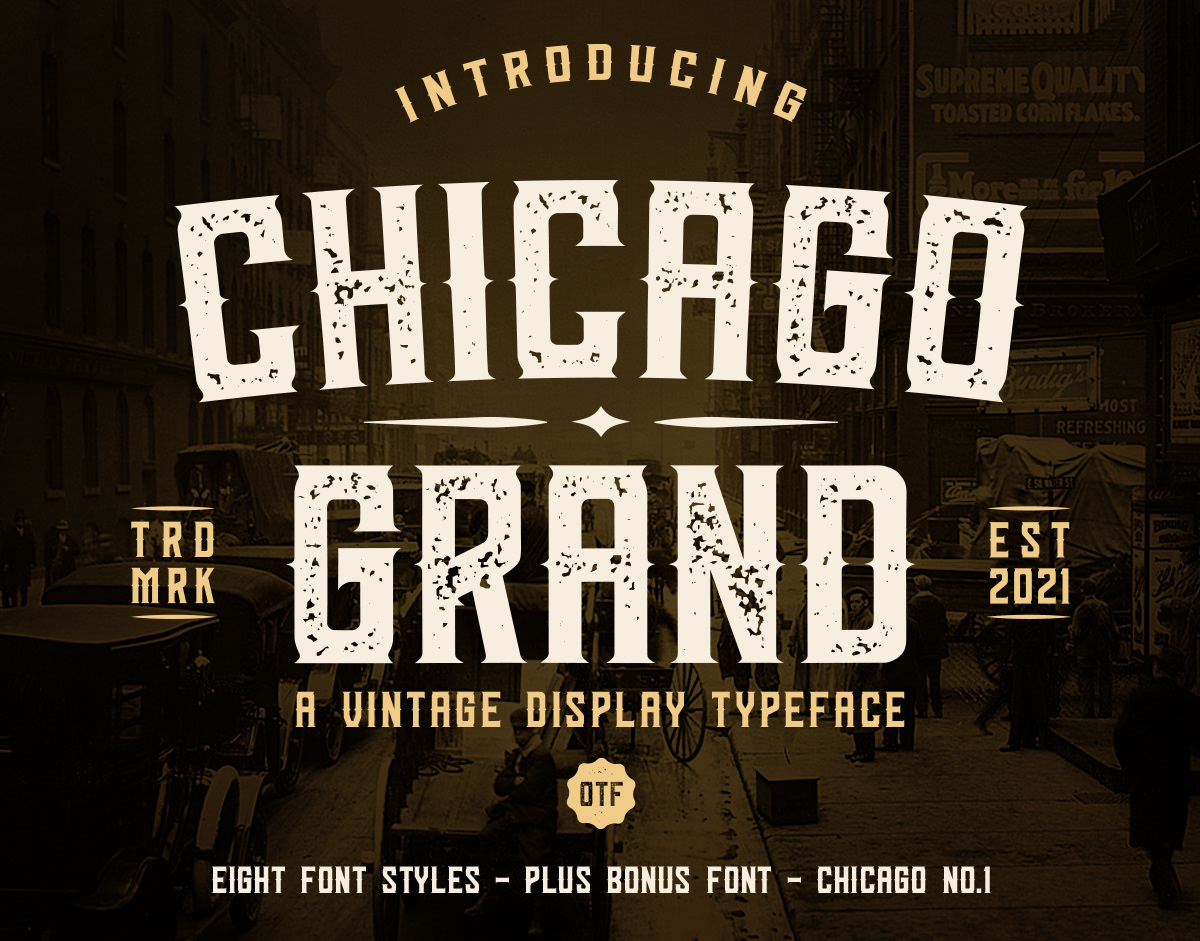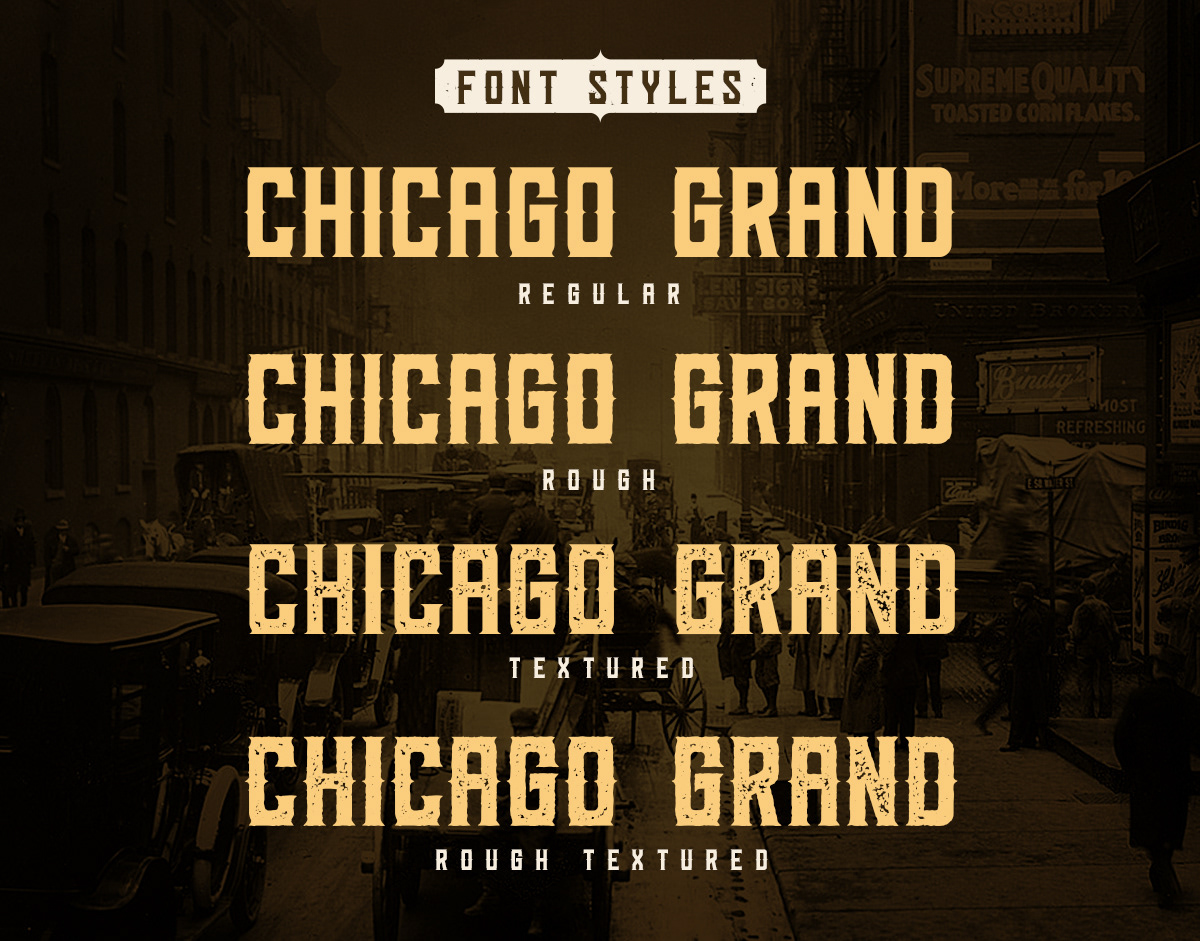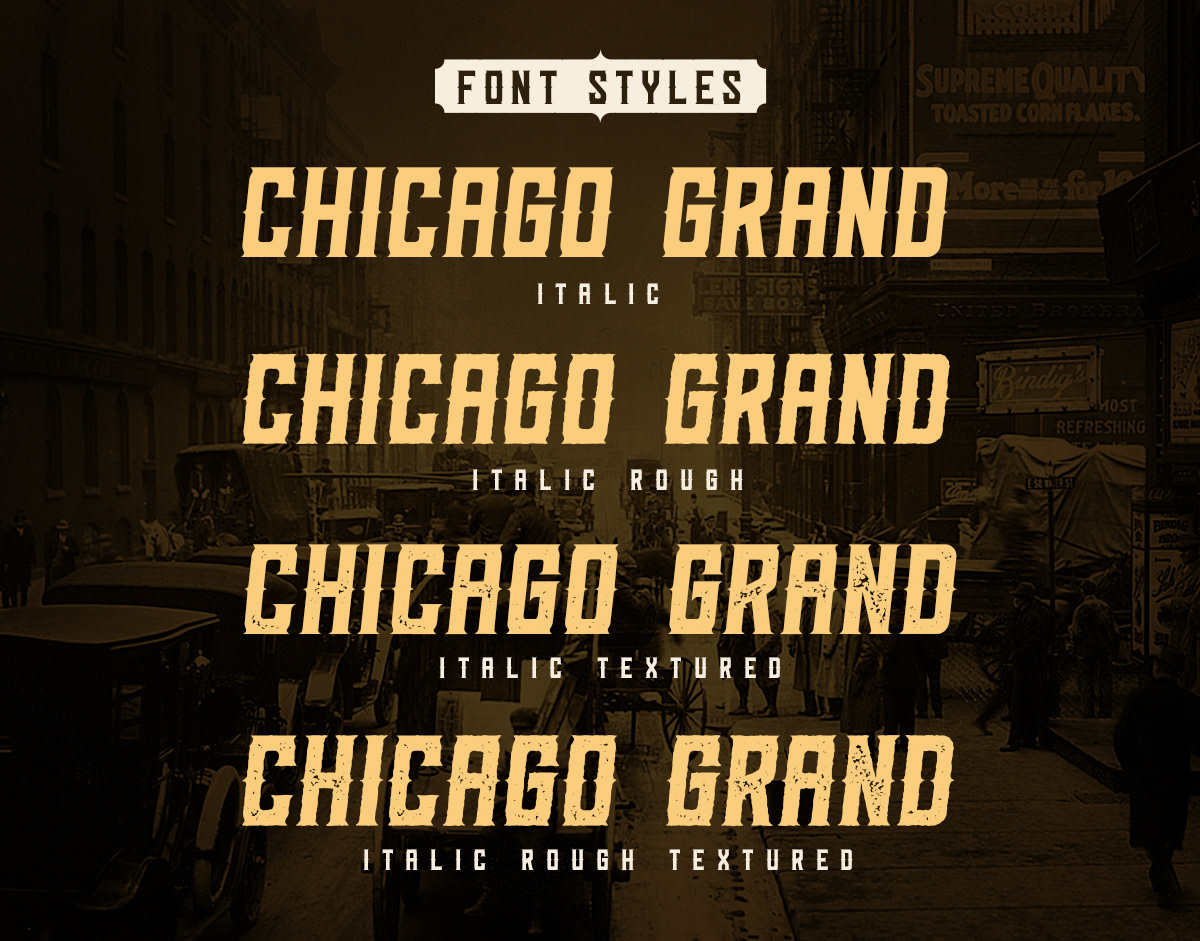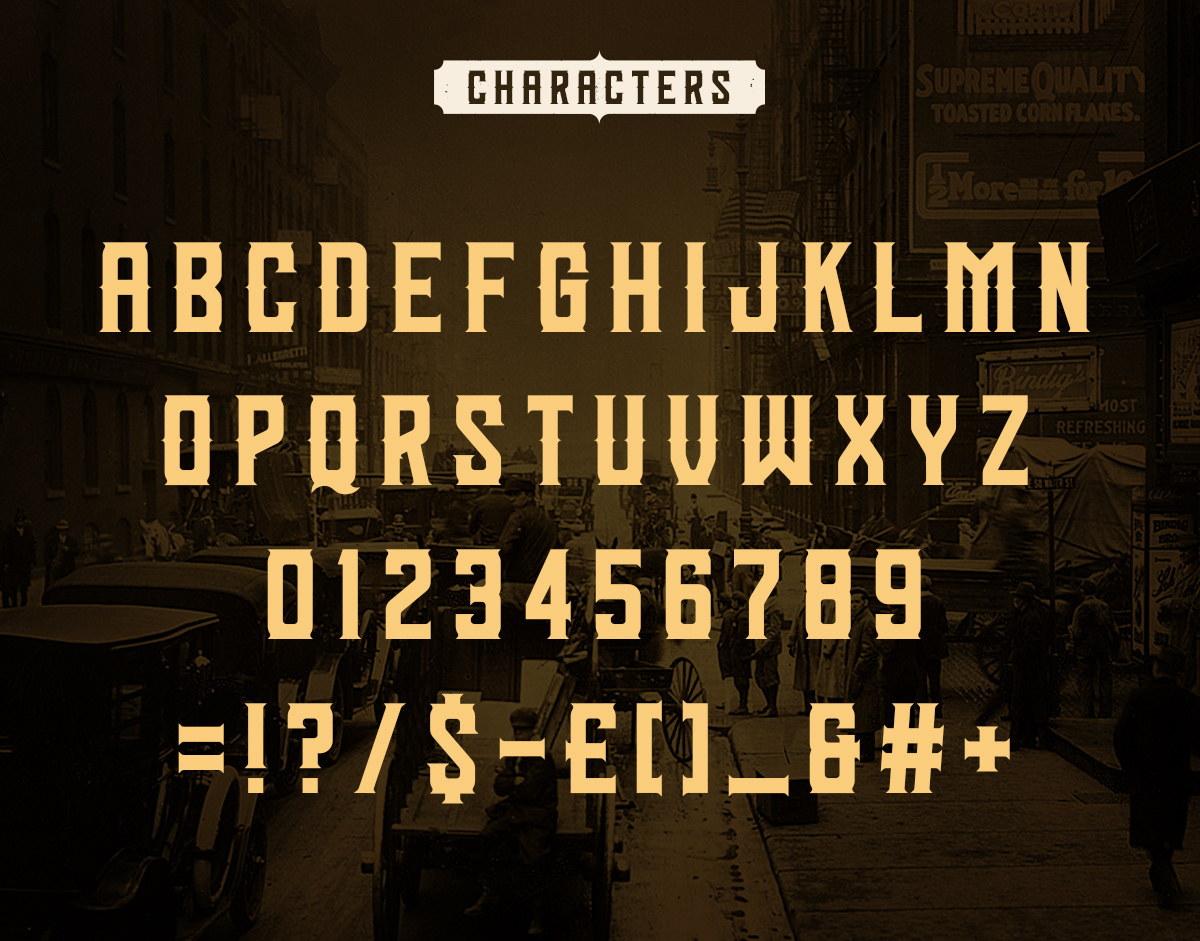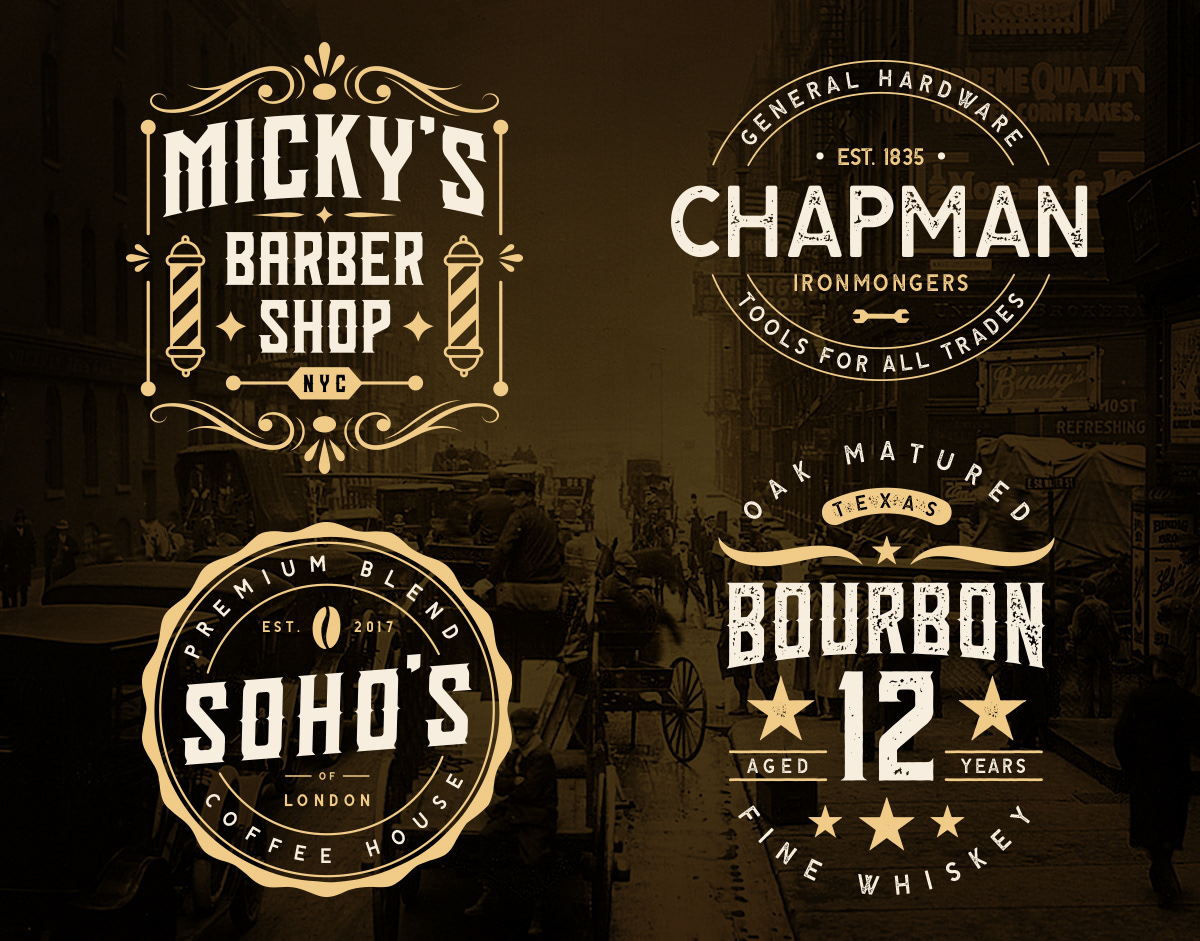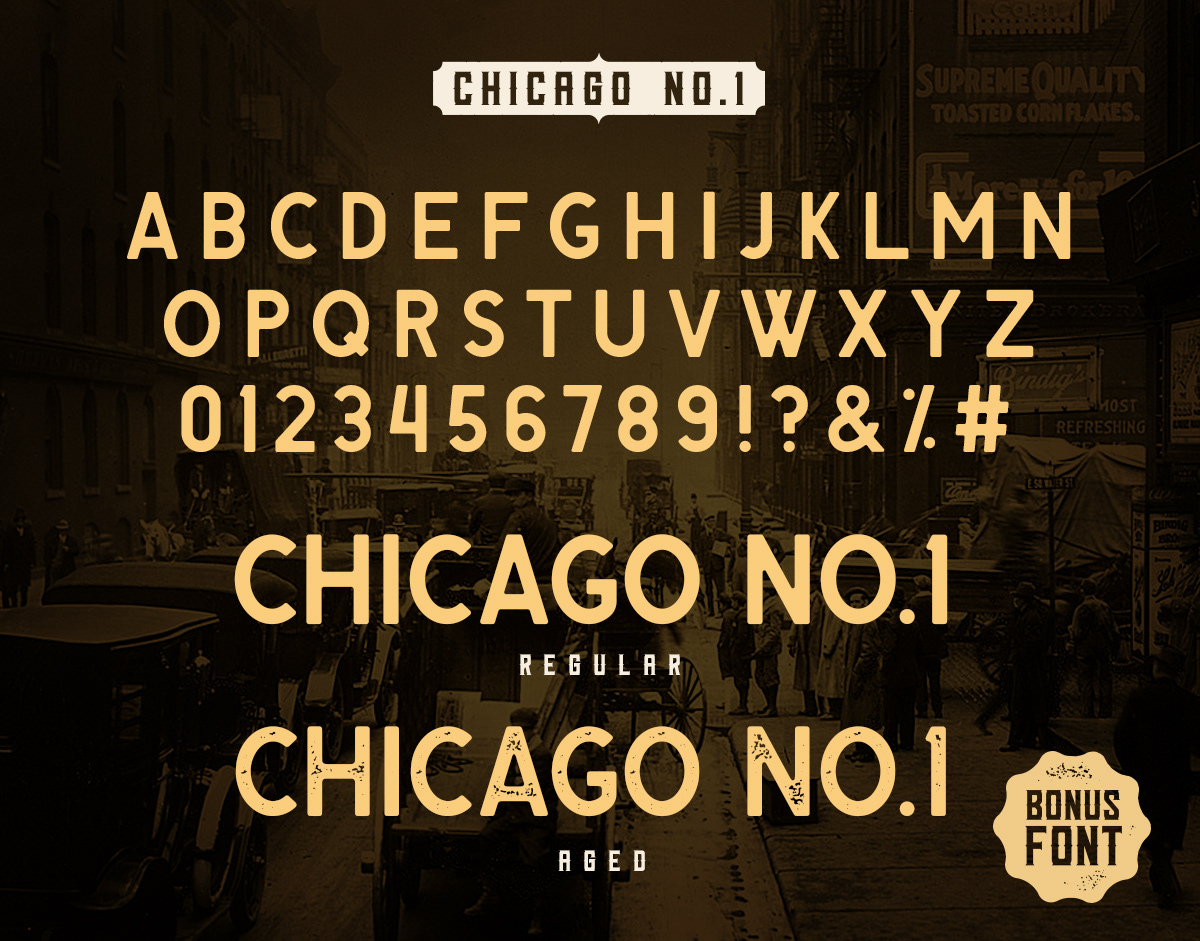
Chicago Grand is a vintage display typeface based on fonts from the early twentieth century.
This font has eight styles including Regular, Rough, Textured, Rough Textured, Italic, Italic Rough, Italic Textured, Italic Rough Textured. Also included is a bonus font - Chicago No.1, which has 2 styles: Regular and Aged. All fonts come with upper case letters, numbers and a selection of punctuation.